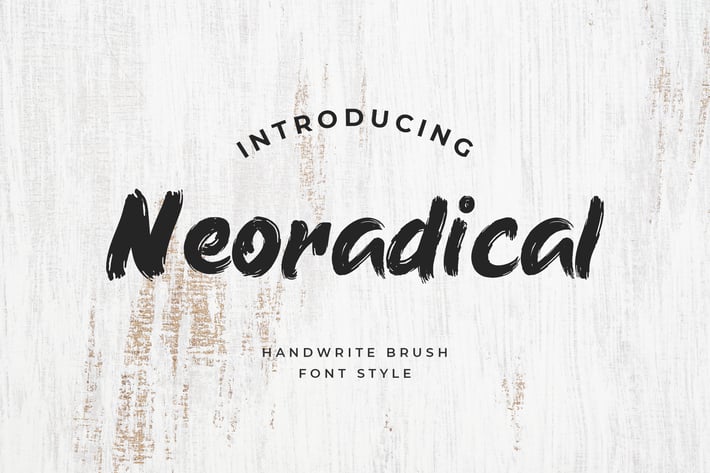
Neoradical Handwritten Brush Font
Neoradical is a playful Handwritten Brush Font Combined with some swashes and natural writing so you can play and create something awesome. Very suitable to use on your logotype project, poster, t-shirt, branding, greeting, business cards and more, so what are you waiting for?